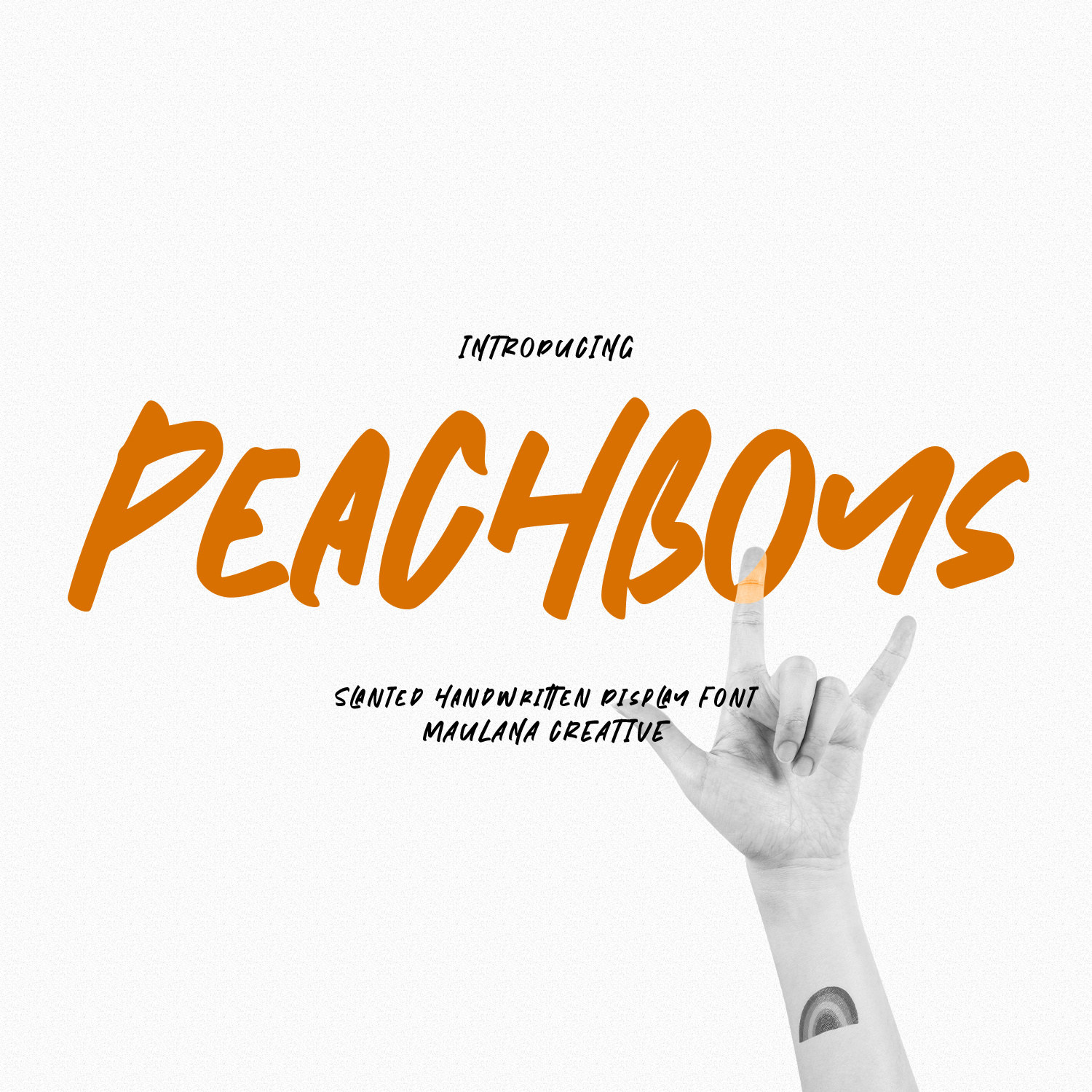
Peachboys Handwritten Font
Peachboys is a modern handwritten display font. With slanted medium contrast stroke, fun character. To give you an extra creative work. Peachboys font support multilingual more than 100+ language. This font is good for logo design, Social media, Movie Titles, Books Titles, a short text even a long text letter and good for your secondary text font with sans or serif. Make a stunning work with Peachboys font.